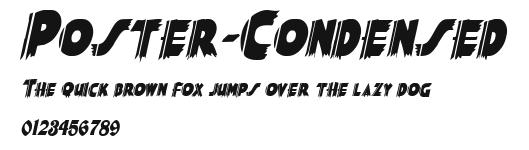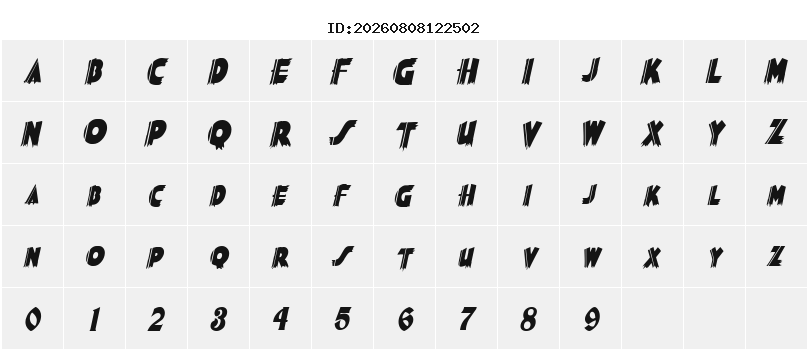
Poster-Condensed Preview
• Font Name: Poster-Condensed
• Full Font Name: Poster-Condensed Italic
About Poster-Condensed.ttf
Poster-Condensed.ttf is a modern, elegant sans-serif font designed for ultimate readability and visual harmony. Perfect for branding, headlines, web design, and print materials.